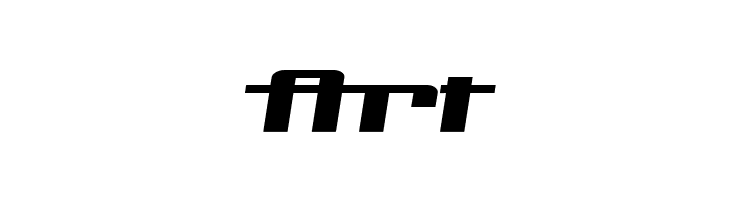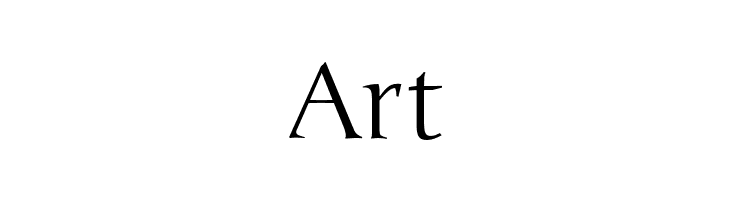
A bold, angular font with a futuristic and industrial design.
A modern serif font with elegant, refined letterforms and moderate contrast.
A modern, light, and italic sans-serif font with elegant slanted characters.
A sleek, modern hairline italic font with a clean and elegant design.
A modern, clean sans-serif typeface with balanced proportions and open forms.